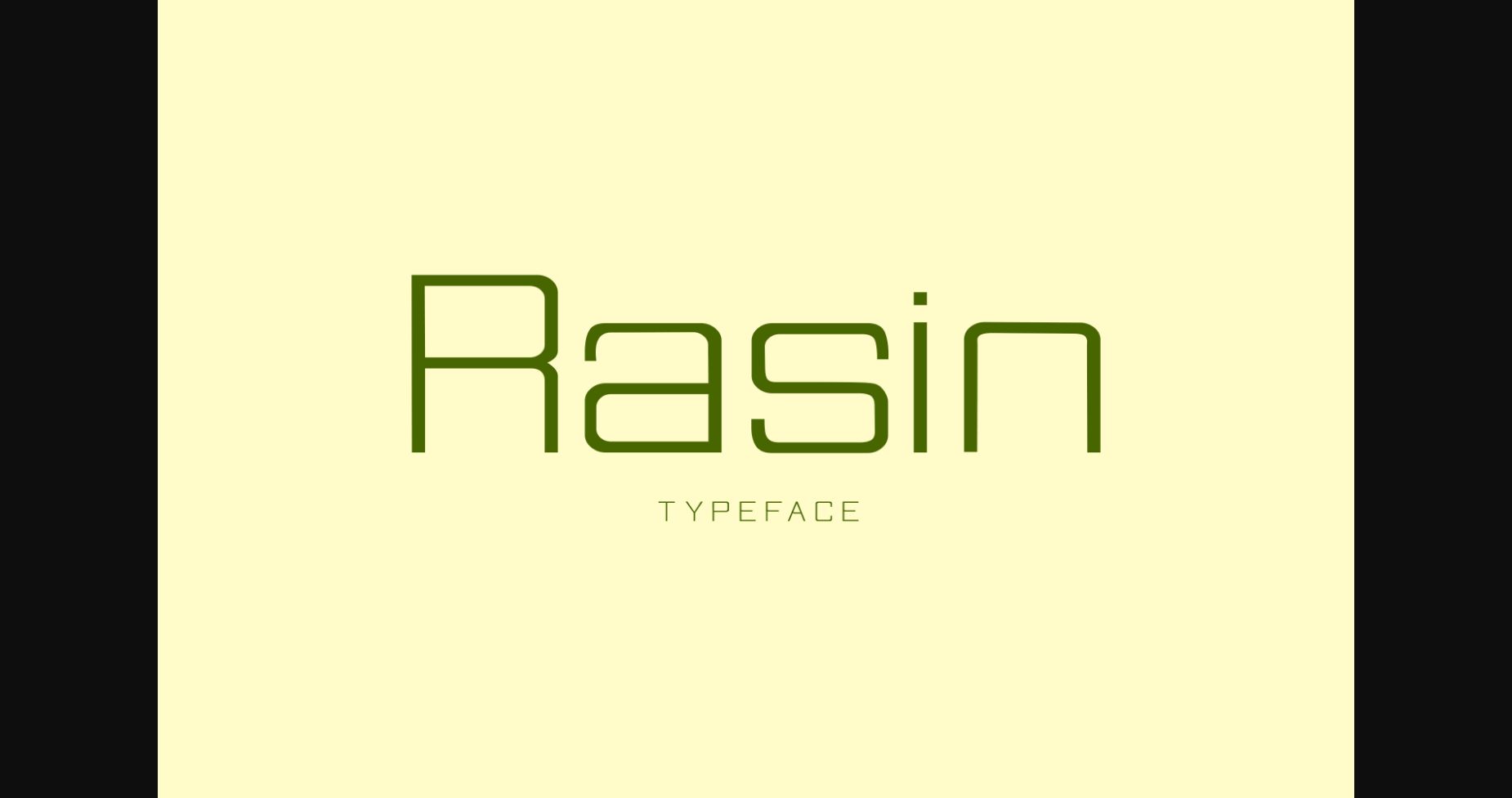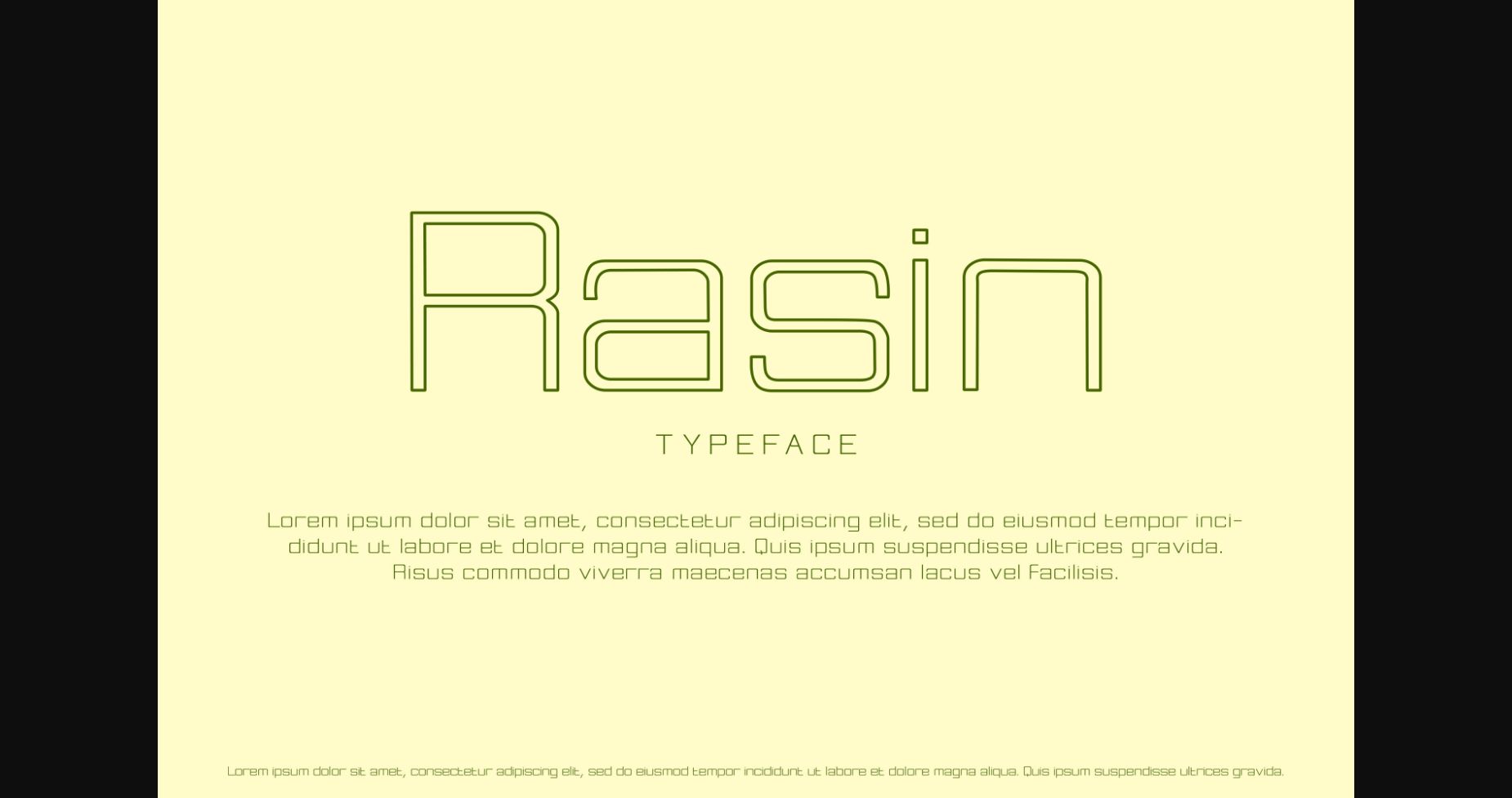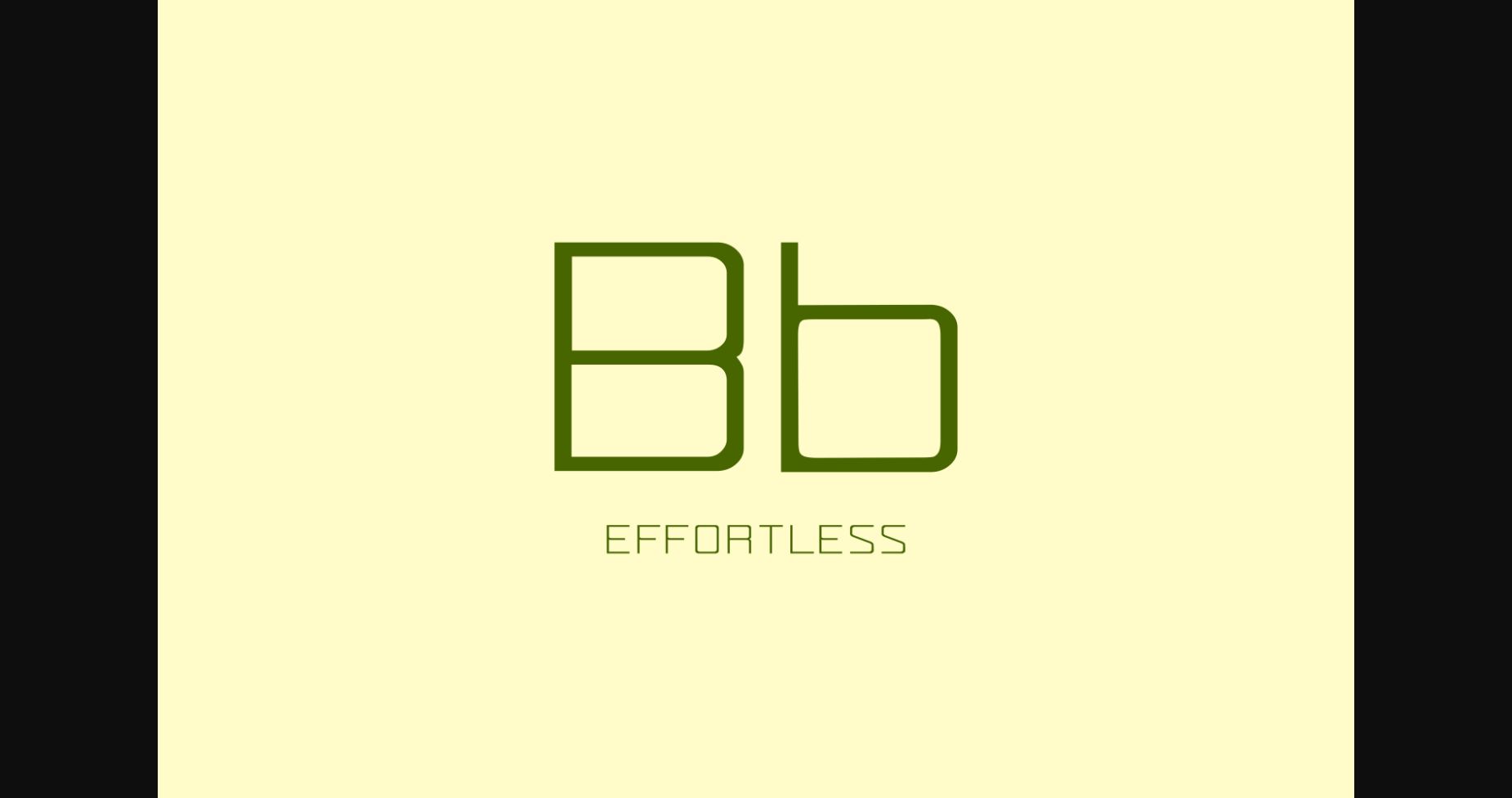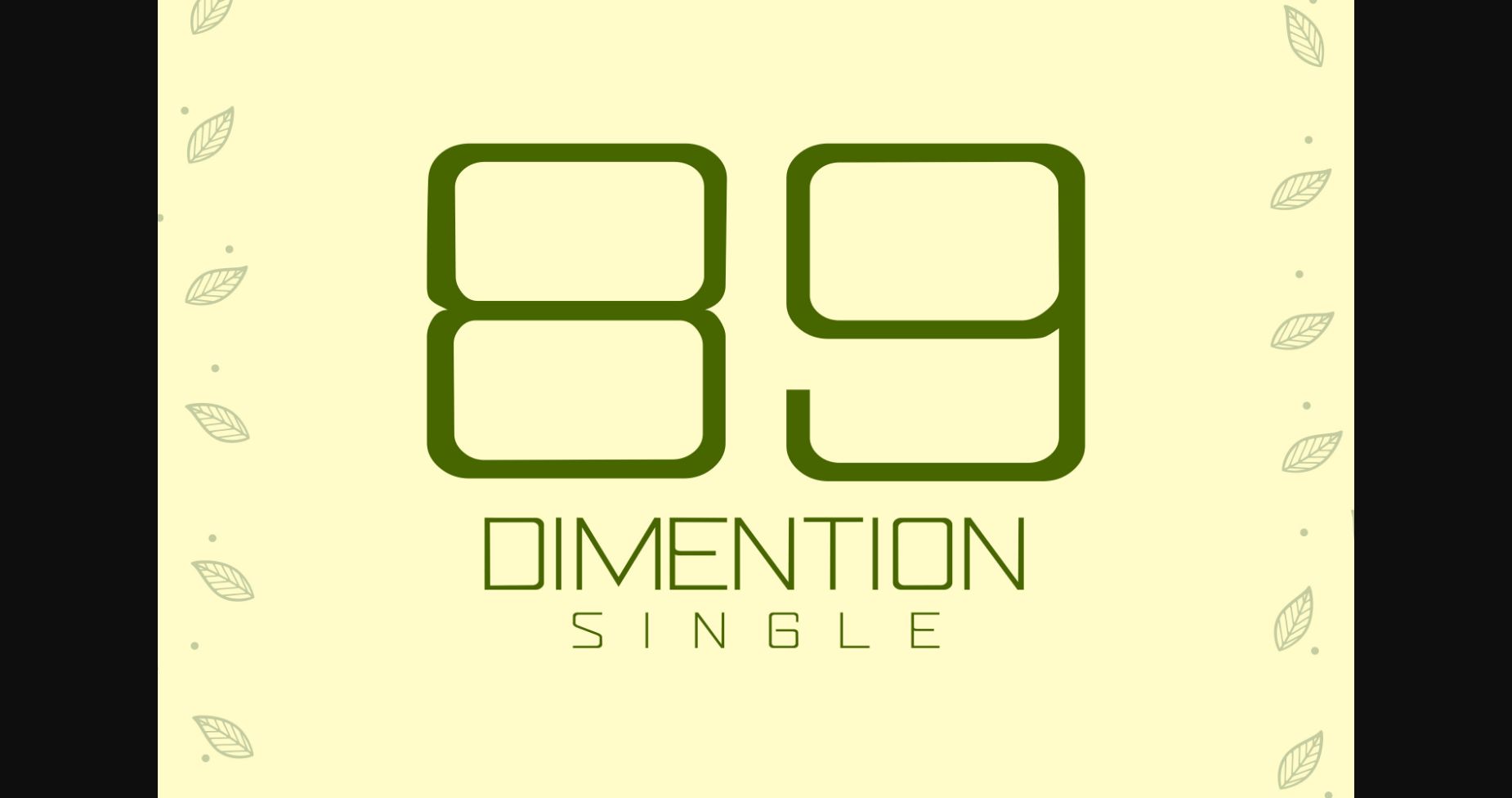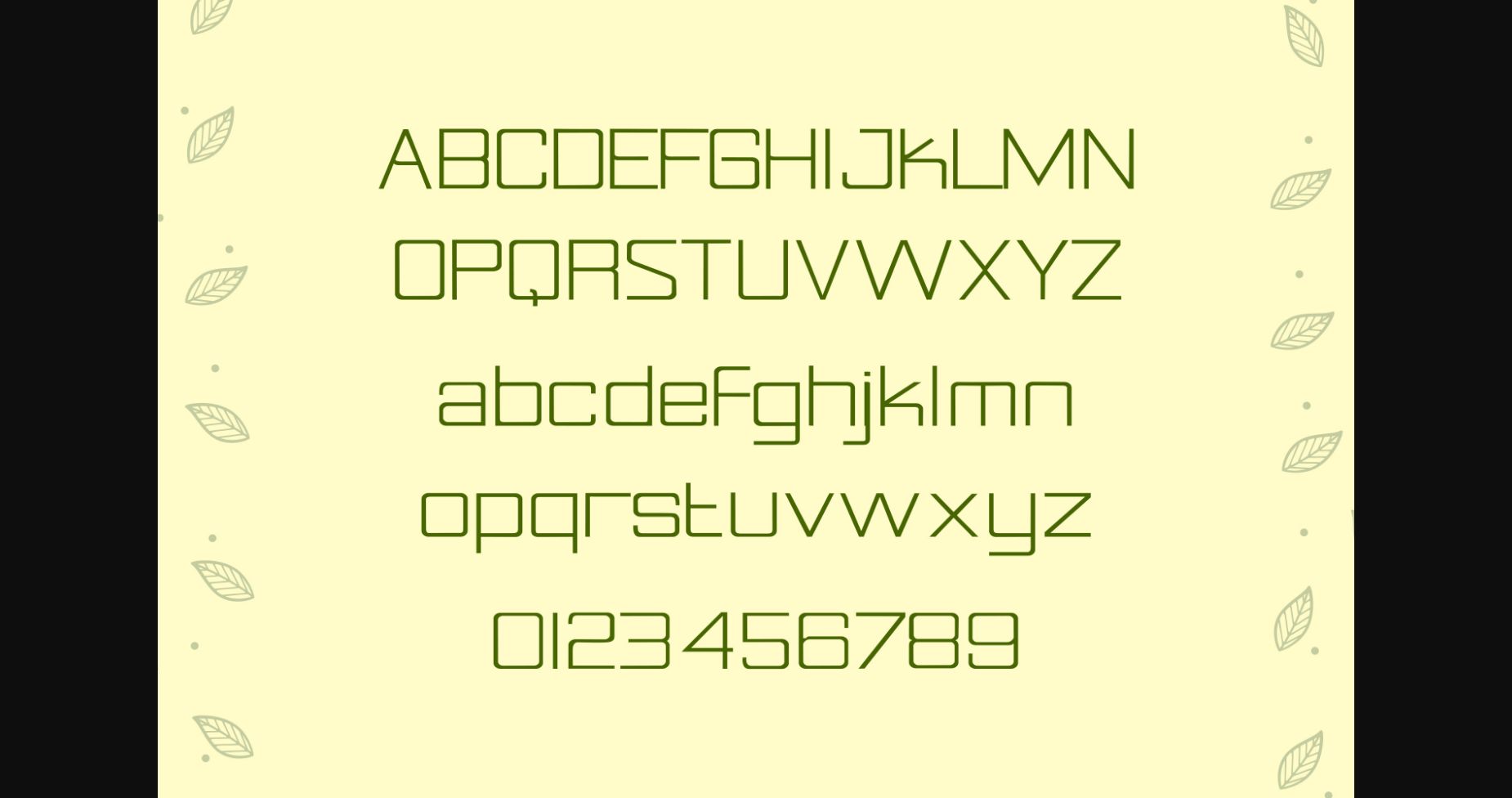
Rasin Font
About Rasin Font
Raisin is a simple and elegant sans serif font that gives off some cool technical vibes. It is perfectly suitable for each of your modern and minimalistic projects that need unique typography!